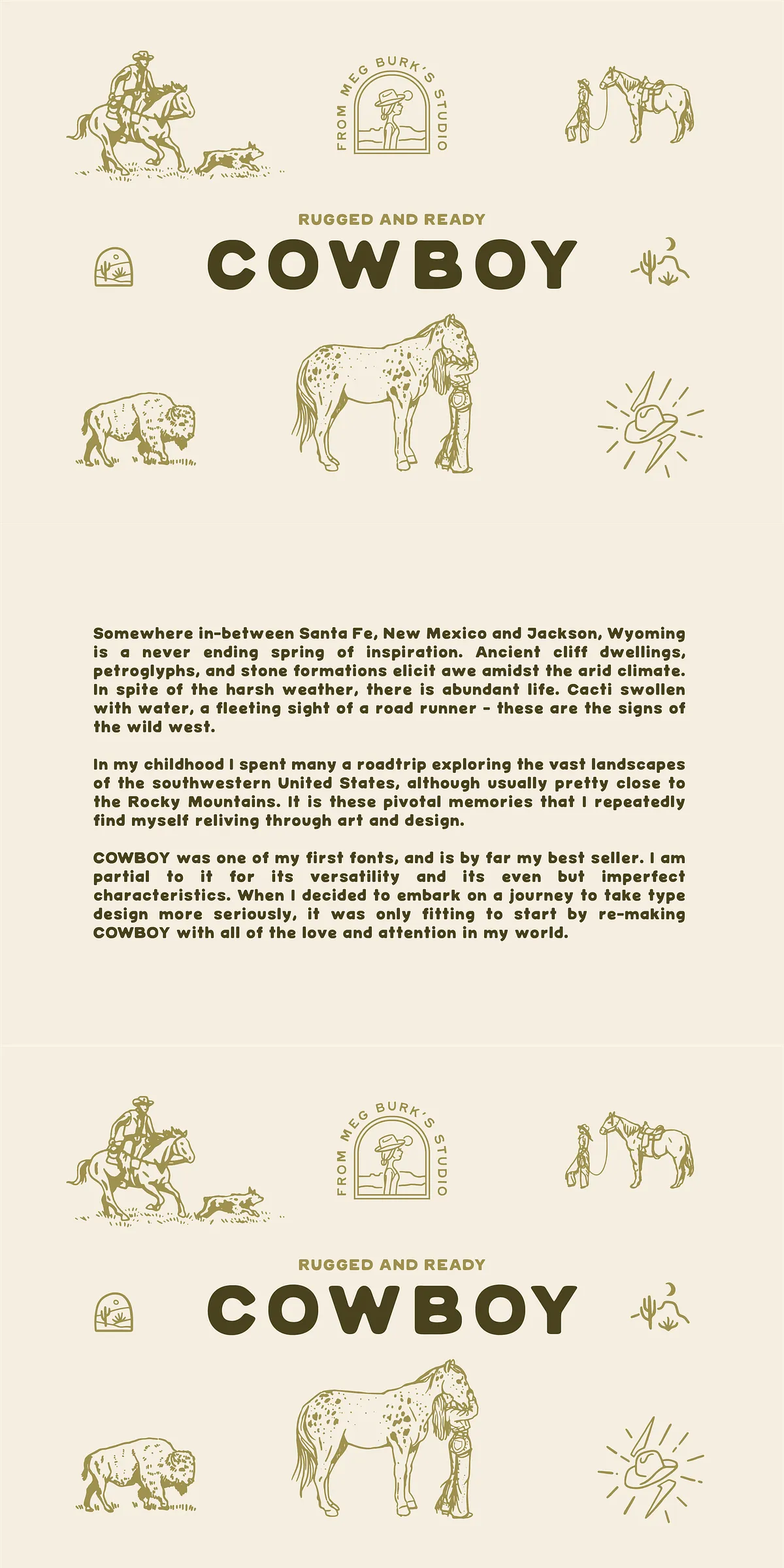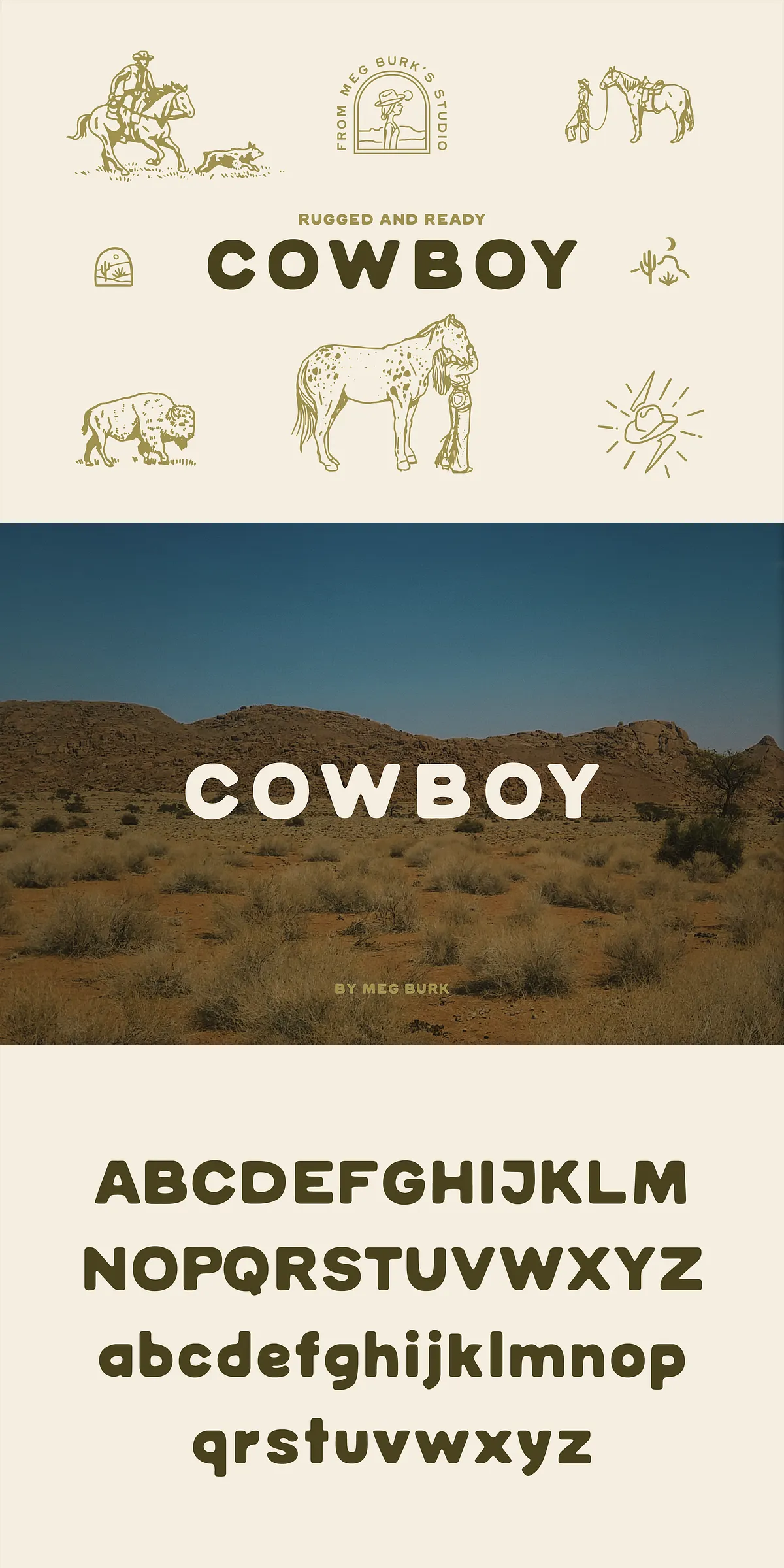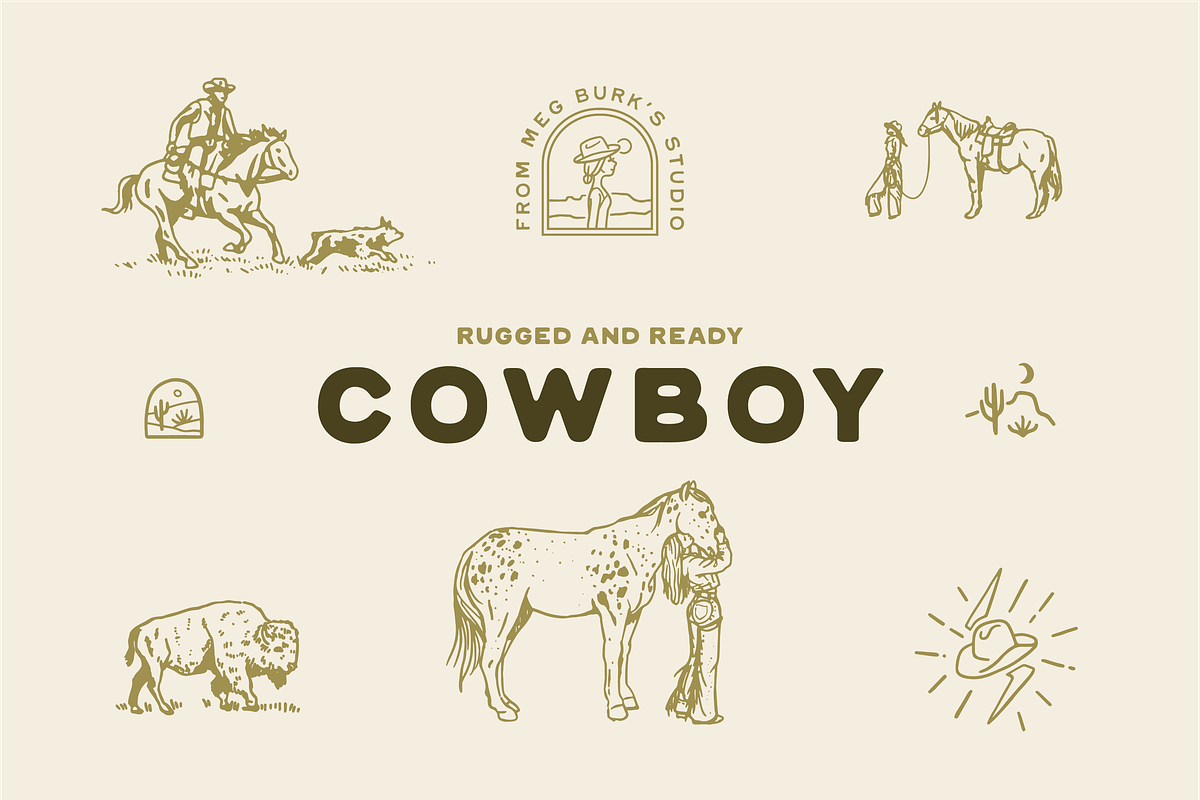
COWBOY
Step into the sun-baked deserts, shadowed canyons, and open skies of the American Southwest with Cowboy—a hand-drawn sans-serif font that doesn’t just look rugged, it feels alive. More than a typeface, Cowboy is a journey through memory, landscape, and raw, unfiltered creativity. Born from the dusty roads of New Mexico and the rocky breath of Wyoming, this font captures the soul of the west—one imperfect stroke at a time.
Rooted in the Land: Where Inspiration Begins
Imagine ancient cliff dwellings carved into red rock, petroglyphs whispering stories through stone, and a lone roadrunner darting across a sun-bleached plain. Somewhere in the vastness between Santa Fe and Jackson, Wyoming, the land breathes inspiration. This is where Cowboy was born—not in a sterile design studio, but in the wild, untamed spirit of the west.
As a child, the creator spent countless roadtrips navigating these rugged terrains, drawn not just by scenery, but by the quiet resilience of life in harsh climates. Cacti swollen with water. A fleeting glimpse of a roadrunner. The way sunlight hits a mountain peak at golden hour. These moments shaped a deep, personal connection to the landscape—and eventually, to this font.
A Legacy Reborn: From First Font to Best-Seller
Cowboy was once the creator’s first foray into type design—and today, it remains their most popular. Why? Because it’s not perfect. And that’s exactly what makes it powerful.
It carries the marks of a human hand—slight inconsistencies, subtle variations, the quiet beauty of being aged by time. It’s not a digital facsimile of handwriting. It’s authentic. This imperfection is its strength. It brings warmth to branding, personality to packaging, and soul to editorial design.
Now, with an updated, handcrafted revival, Cowboy has evolved without losing its heart. Every glyph has been re-touched, every stroke refined—but never sanitized. You’ll find the original vectors in their full, expressive glory, now enhanced with new, high-quality glyphs and vector icons for even greater creative freedom.
Designed for Purpose: Versatile, Expressive, Unforgettable
Cowboy isn’t limited to cowboys and saloons. Its rugged, human touch fits beautifully in a wide range of design applications:
• Western-themed branding—logos, posters, merchandise, and signage that tell a story
• Adventure travel & outdoor products—packaging, websites, and ads for hiking gear, camping equipment, and adventure tourism
• Editorial & magazine design—captions, pull quotes, and headlines that feel bold and grounded
• Music & film projects—titles, posters, and promotional materials with a cinematic, lived-in feel
• Custom illustrations & icons—the included vector icons add an extra layer of storytelling power
Whether you’re designing for a coffee roastery in Taos or a music festival in Moab, Cowboy adds depth, texture, and a sense of place.
Built for Real-World Use: Function Meets Feeling
While Cowboy is expressive, it’s also engineered for performance:
It’s a font you can trust—strong enough for headlines, expressive enough for stories, and timeless enough to reuse across projects.
Cowboy Is a Call to Remember: Take It In
As you use this font, remember the lands that inspired it. The silence between mountains. The crackle of a desert wind. The feeling of being small yet part of something vast.
So the next time you’re designing a project, pause. Look beyond the screen. Take a breath. And if you ever find yourself somewhere along the Rockies or the western deserts, don’t forget to take it in—just a little extra.
Because Cowboy isn’t just a font. It’s a moment. A memory. A place. And now, it’s yours.